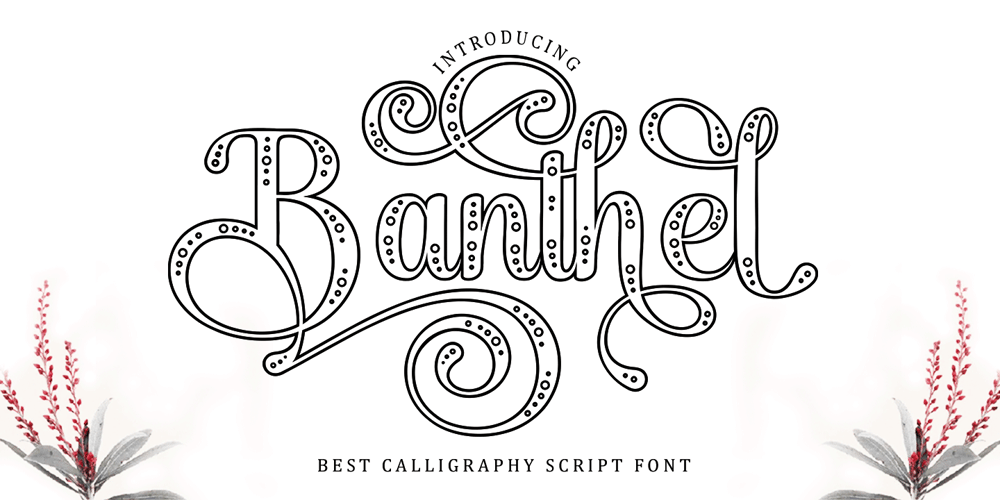
Banthel outline
Banthel outline font
Banthel outline Font Family was designed by Wahi Din and published by Gold Type. Banthel outline contains 1 styles and family package options. Banthel Outline is a beautiful and versatile script font. This font has a distinctive script style with a luxurious style in a modern form, but also a friendly and cheerful style in a bold form, Banthel Outline has glyphs to give crafters more options in designing. This modern style will make a design look more classy, ​​elegant, unique and edgy.Banthel Outline is a font that is suitable for many projects, for modern or even retro vintage designs, branding, logos, crafts, stickers, sublimation, wedding invitations and many more. This font is suitable for various projects such as logos, branding, magazines, signage, fashion, and many more.-Uppercase and Lowercase letters, Numbers and Punctuation, Multilingual support, PUA coded fonts, Alternative styles and ligatures.Thank you